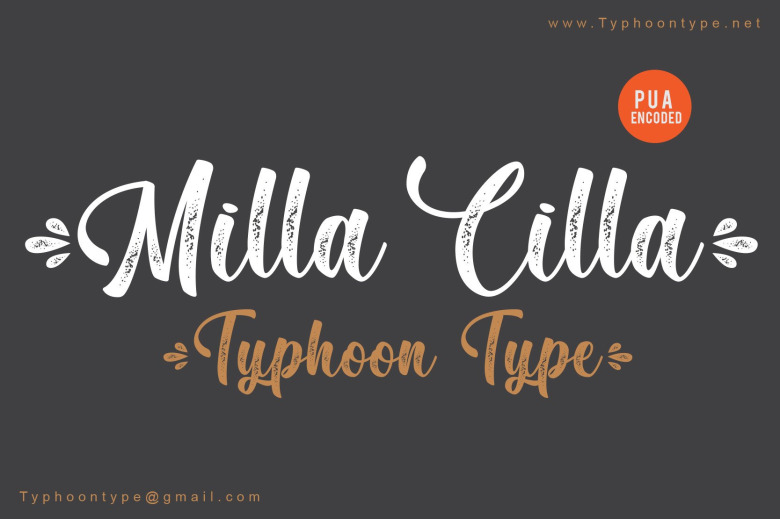
Milla Cilla Font
Introducing natural handwritten font with elegant swash extras. Made from font designer named Typhoon Type – Suthi Srisopha. It will add a luxury spark to any design project that you wish to create! This font is PUA encoded which means you can access all of the amazing glyphs and ligatures with ease!